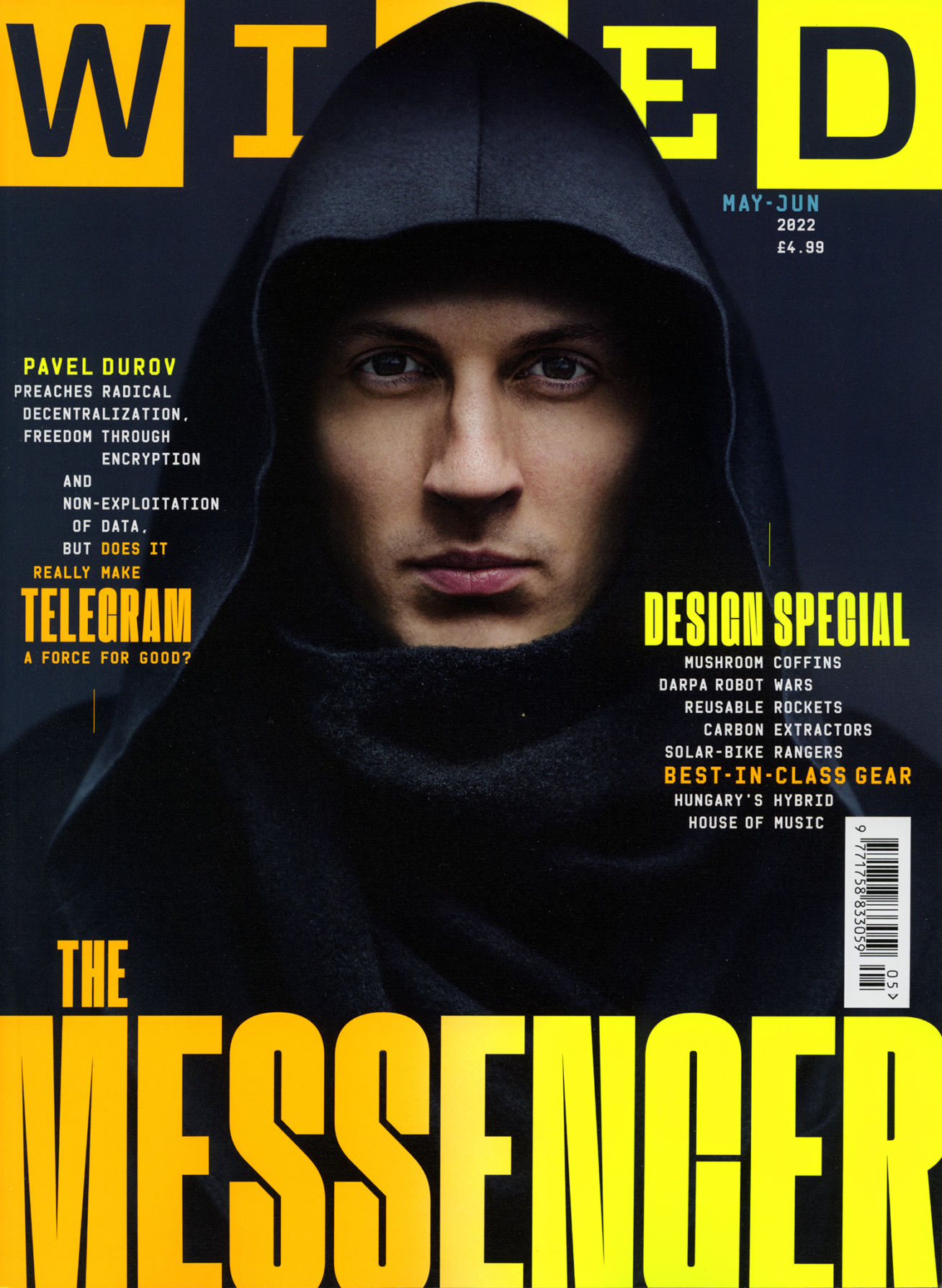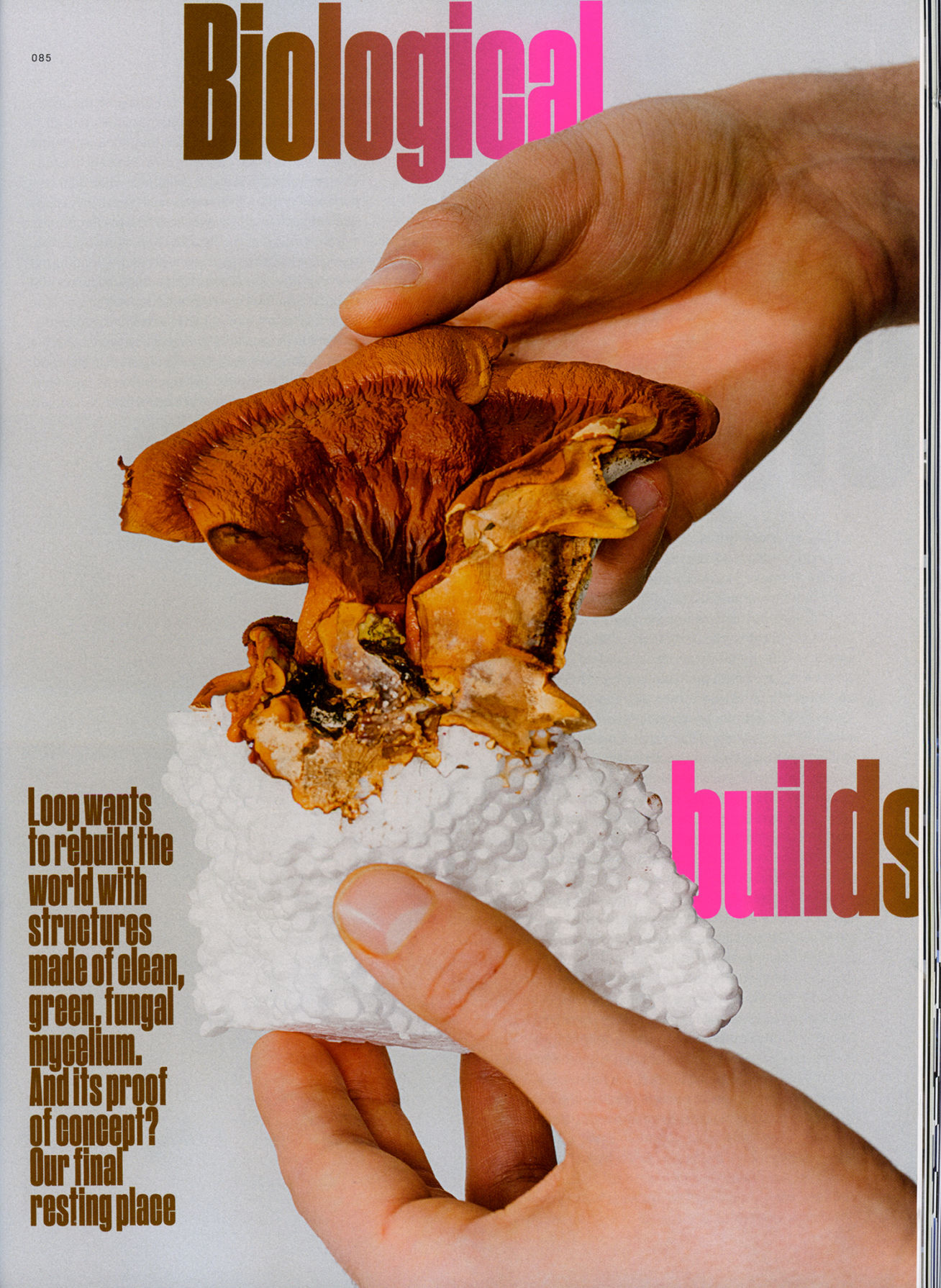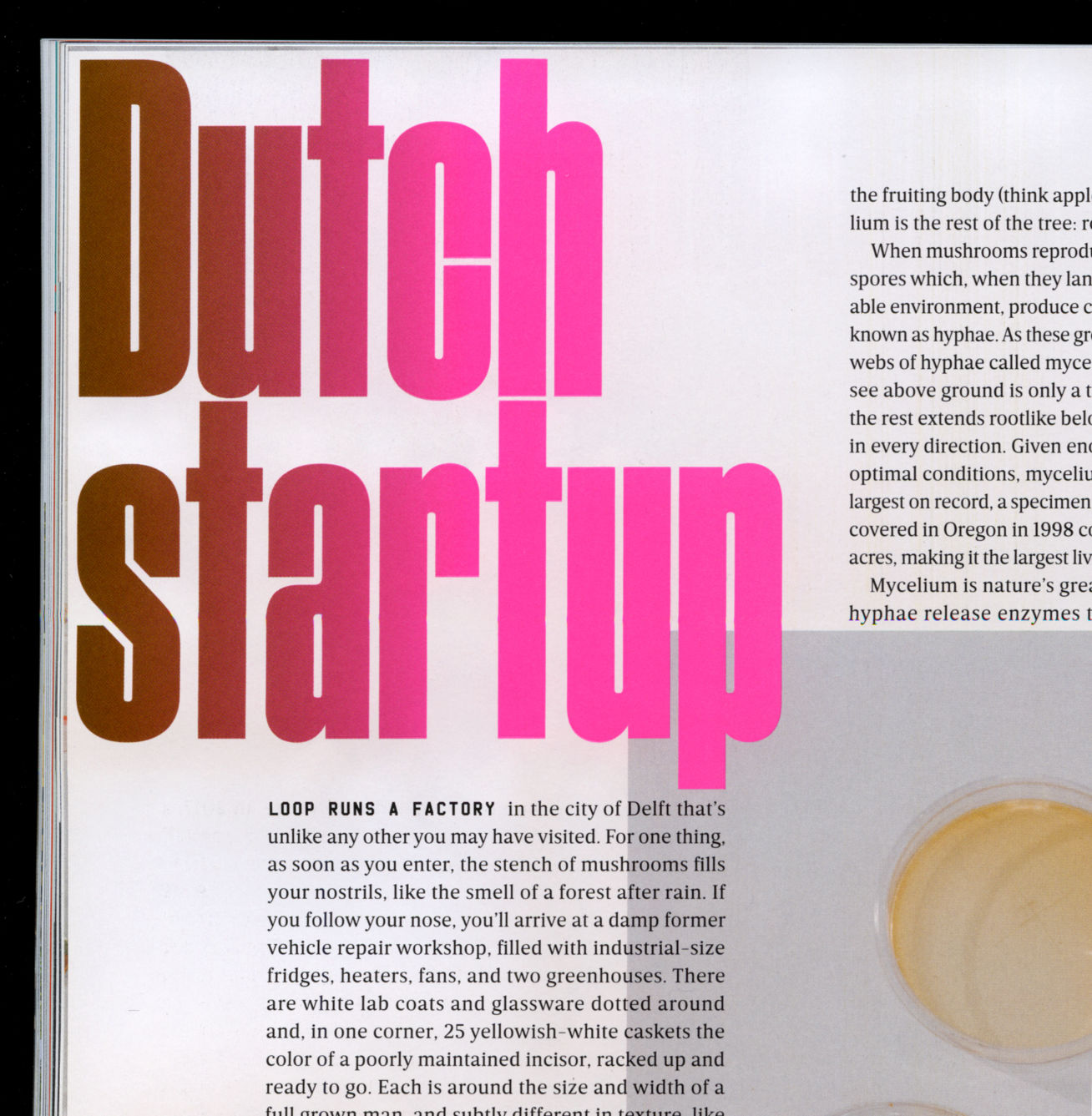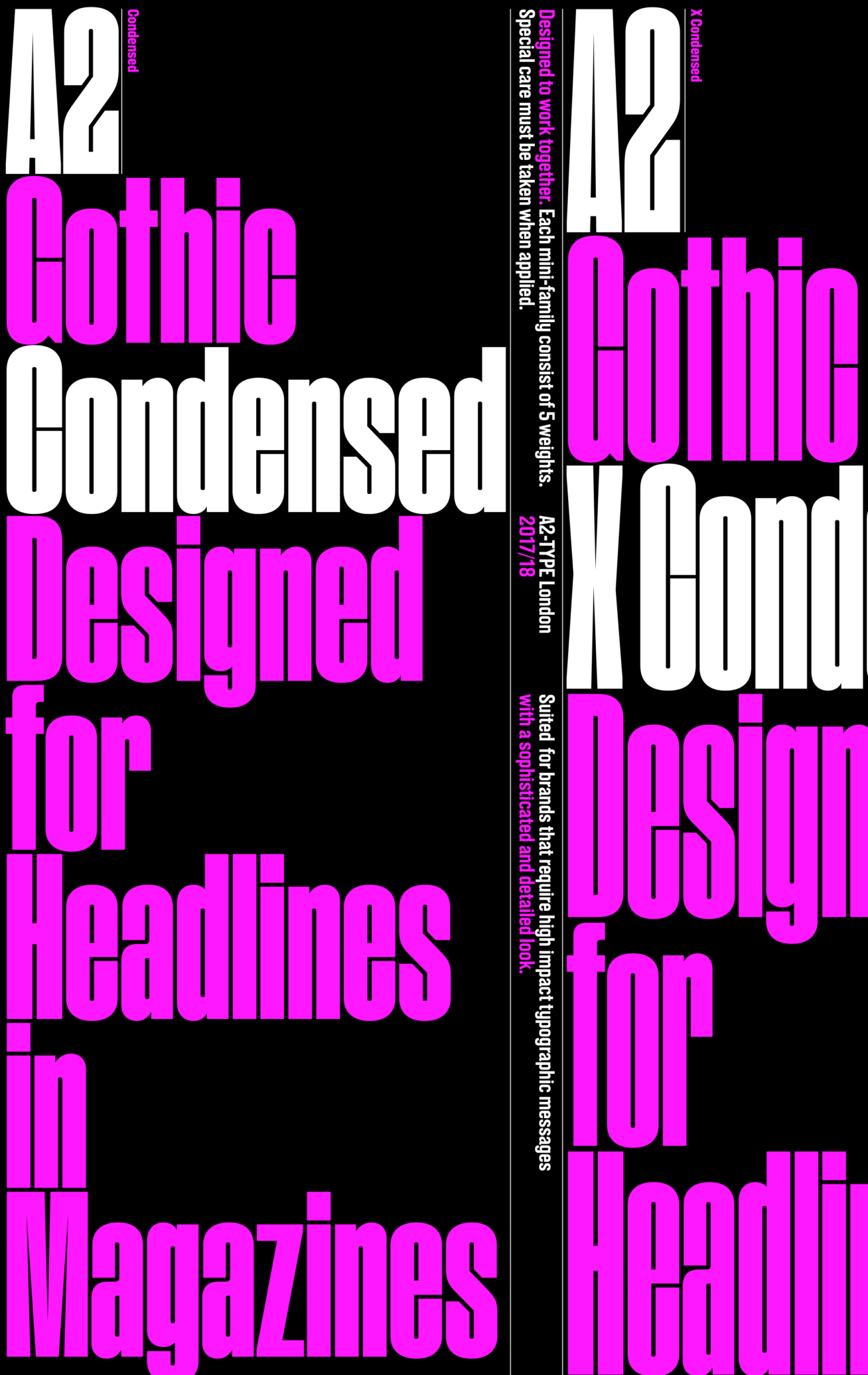
A2 Gothic Condensed
A2 Gothic Condensed is a bold, extremely condensed, yet elegant iteration of this Grotesque Family. The font is distinguished by its narrow proportions and exaggerated counters. Making Gothic X Condensed an excellent choice for headlines and titling. This font sits nicely with the A2 Gothic X Condensed fonts also... Please note: This font requires extra typographic care! when setting text, as the proportions are breaking the norm.
Wired UK, May-June, 2022. Design: Andrew Diprose